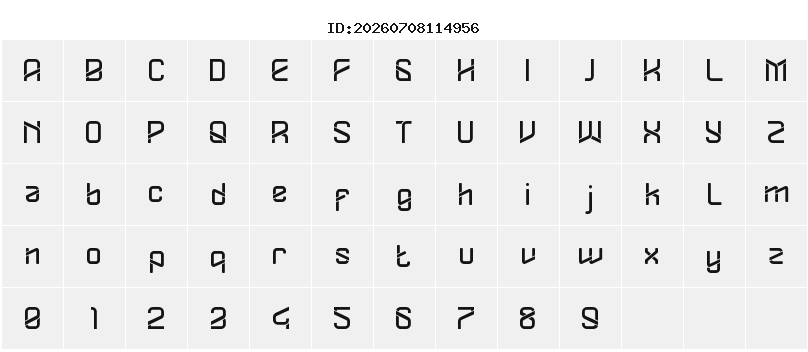
• Font Name: DYLOVASTUFF
• Full Font Name: DYLOVASTUFF
About DYLOVASTUFF.ttf
DYLOVASTUFF.ttf is a modern, elegant sans-serif font designed for ultimate readability and visual harmony. Perfect for branding, headlines, web design, and print materials.